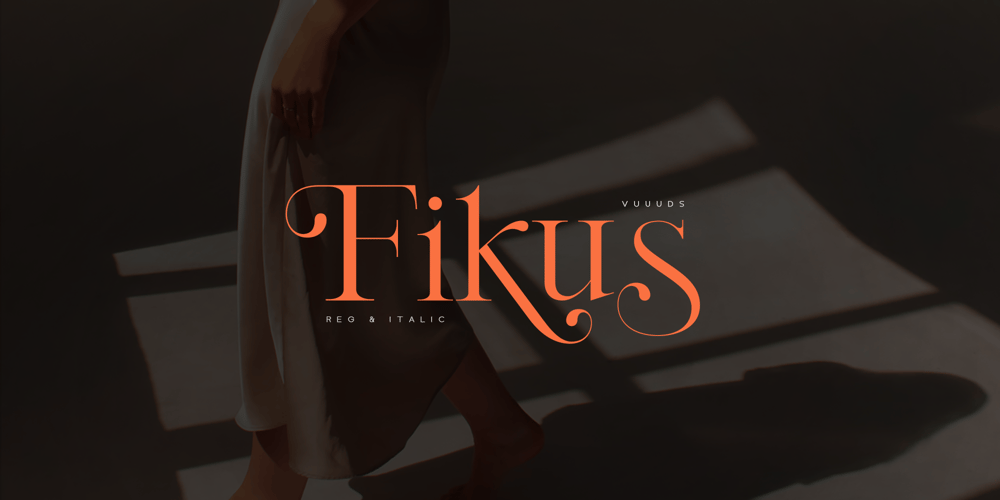
Fikus Font Family was designed by Agung Syaifudin and published by vuuuds. Fikus contains 2 styles and family package options. Introducing Fikus Font!Fikus is experimental modern serif font, every single letters have been uniquely crafted.This font including beautiful alternate glyph. You can access the alternate glyph via Font Book (Mac user) or Windows Character Map (Windows user), I’ve been put the link tutorial inside the zip file.